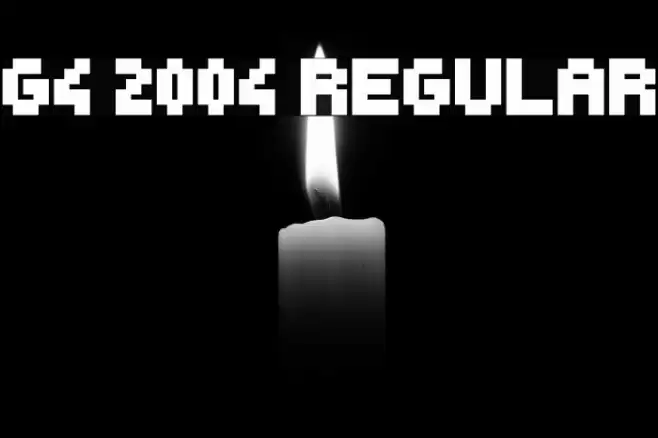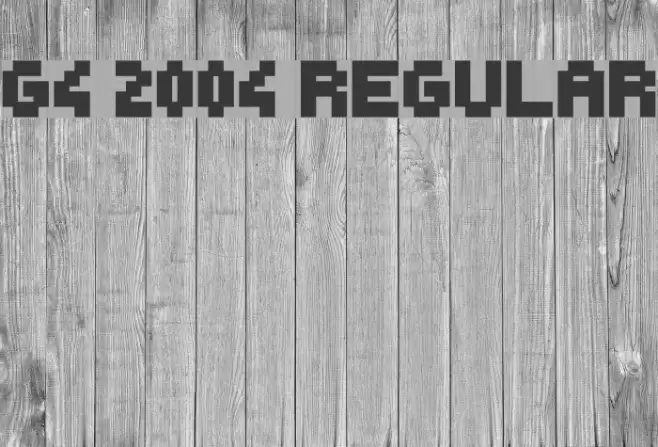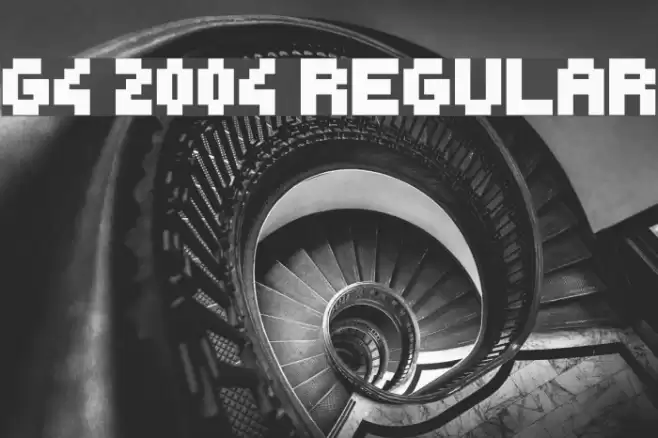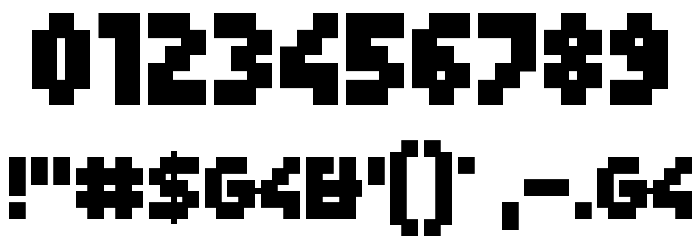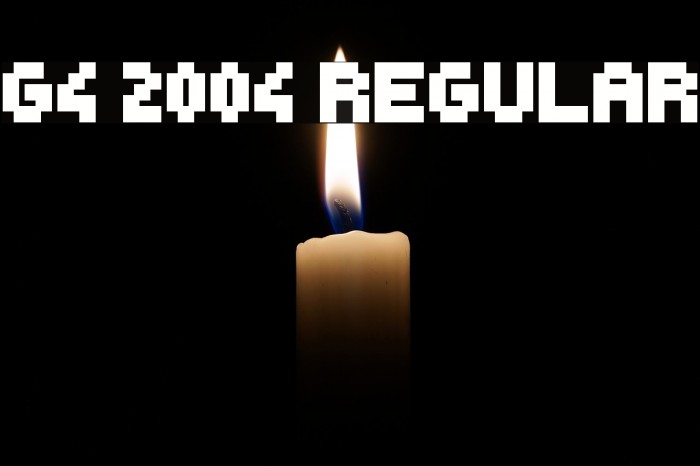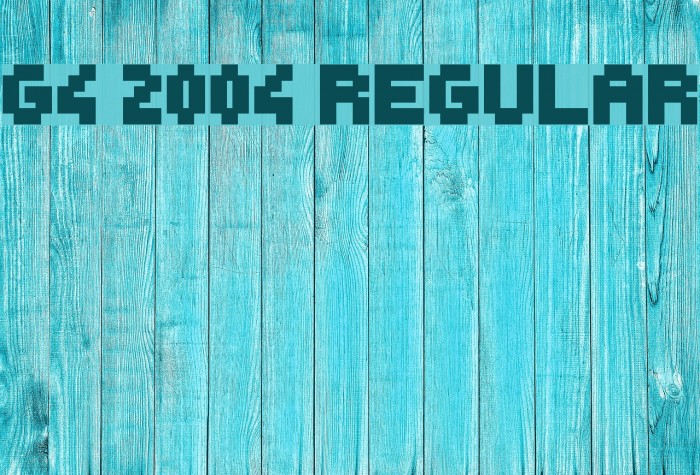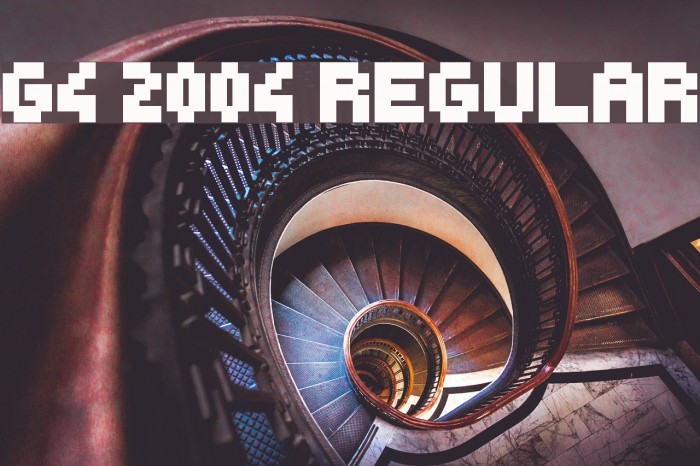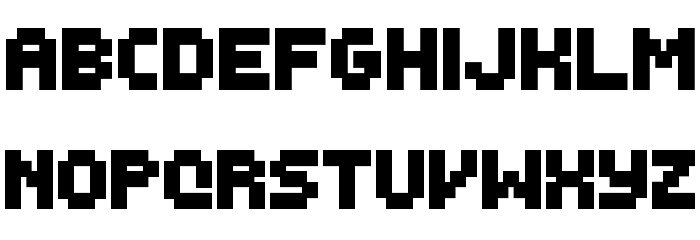
G4 2004 Regular Font
G4 2004 Regular Description
This font features a bold, pixelated design reminiscent of early digital displays and retro video games. Each character is constructed with a blocky, grid-like structure, giving it a distinctly digital and geometric appearance. The uniformity in stroke width across all characters contributes to a cohesive and consistent look. The uppercase and lowercase letters maintain the same pixelated style, ensuring readability while preserving the unique aesthetic. Numbers and special characters are also designed with the same blocky style, making them easily recognizable and visually compatible with the alphabetic characters. This font's nostalgic appeal and digital essence make it ideal for projects that aim to evoke a sense of retro technology or gaming culture.
A bold, pixelated font with a retro digital aesthetic from Uncategorized fonts.
- Proposed Projects: Ideal for retro-themed video games, digital art projects, tech-related branding, and nostalgic graphic designs.
- Overall Style: Retro, Digital
- Use Case: Headlines, Logos, Digital Art